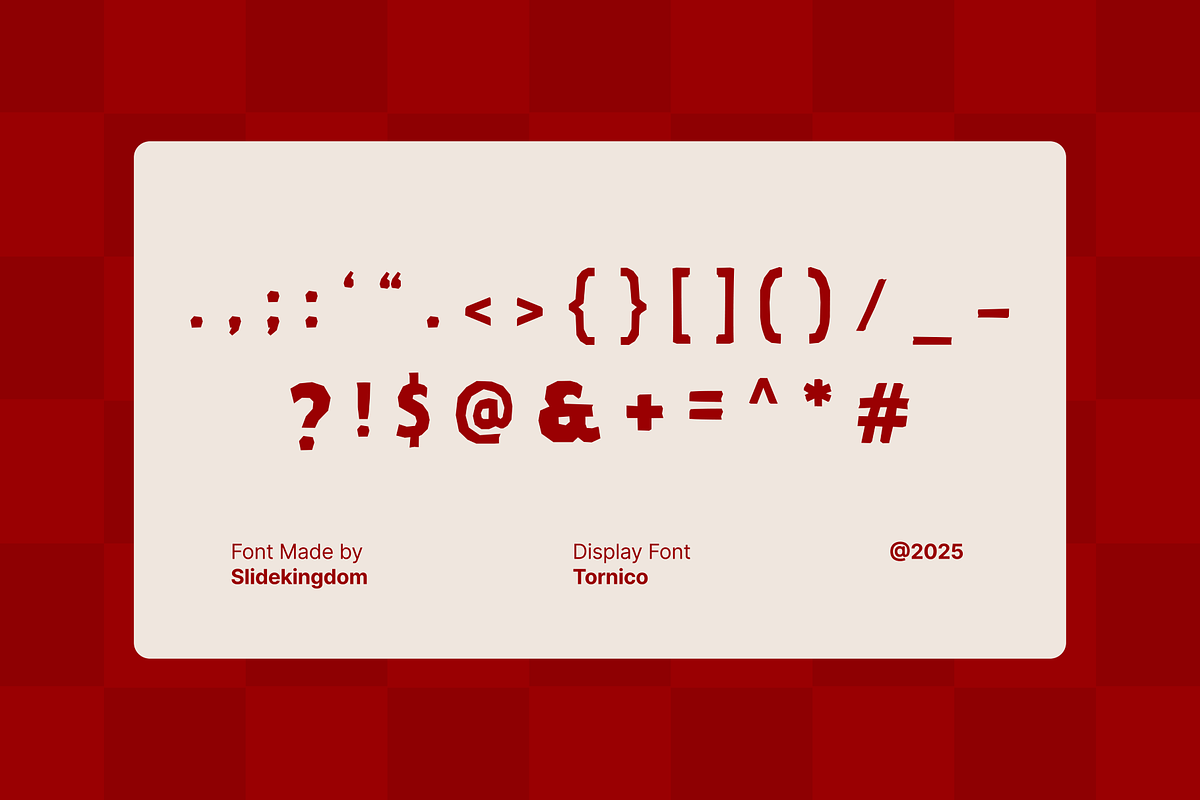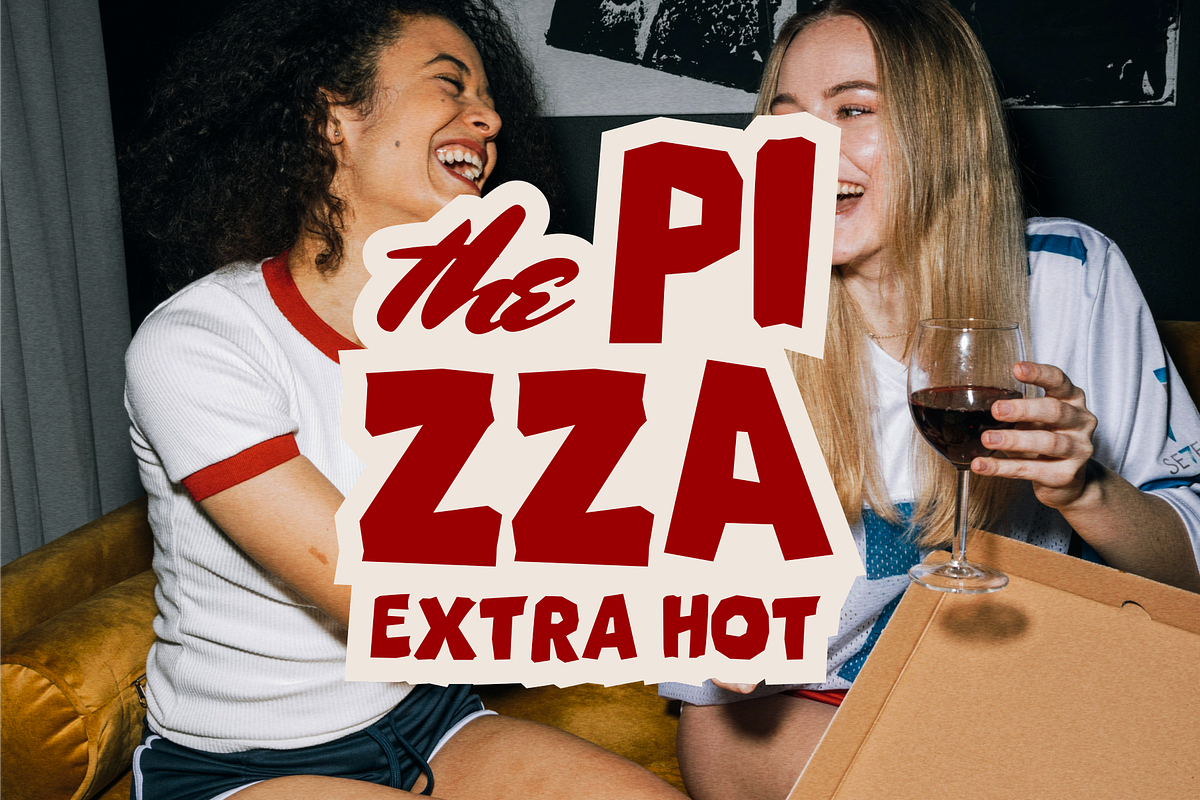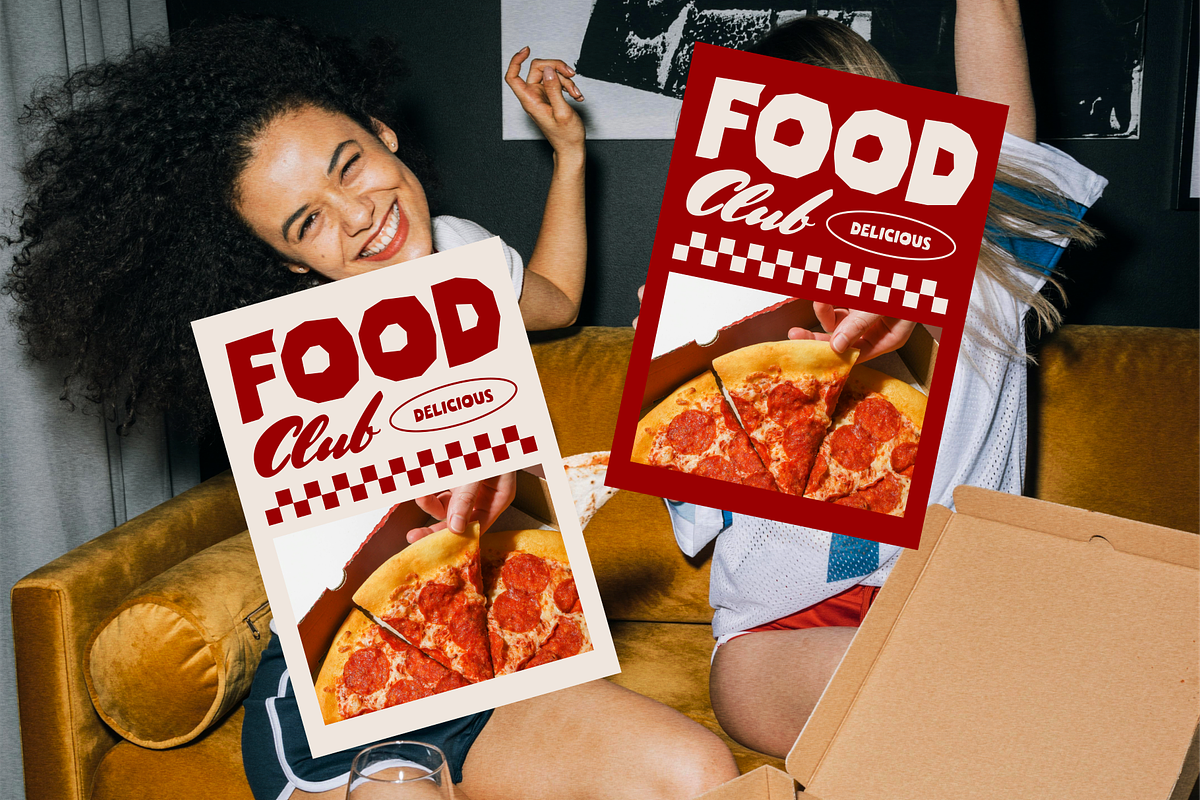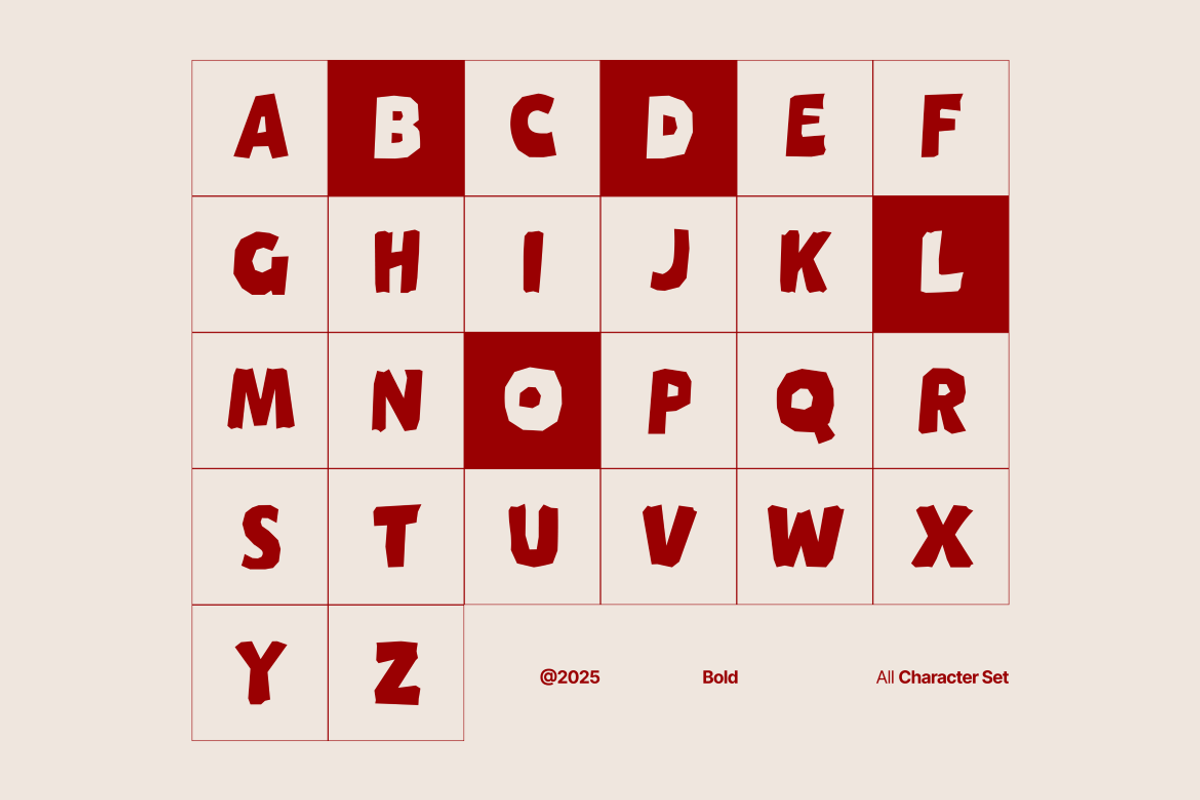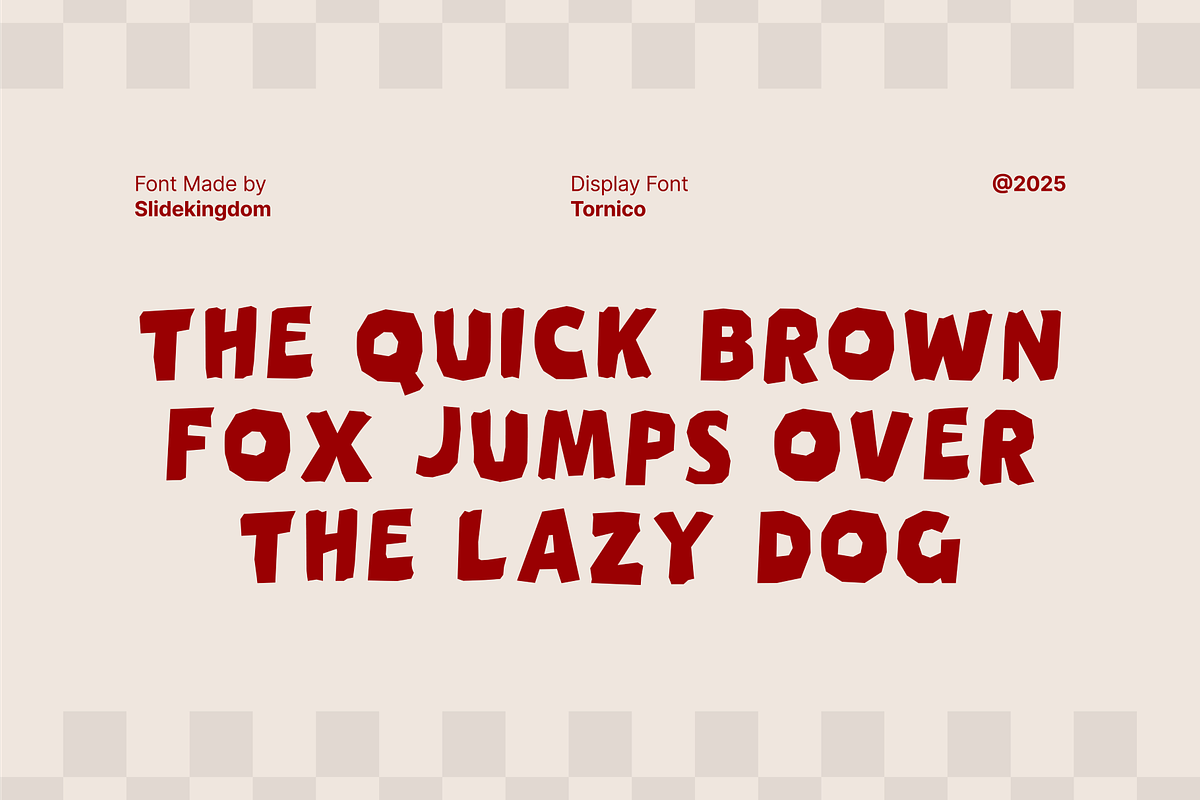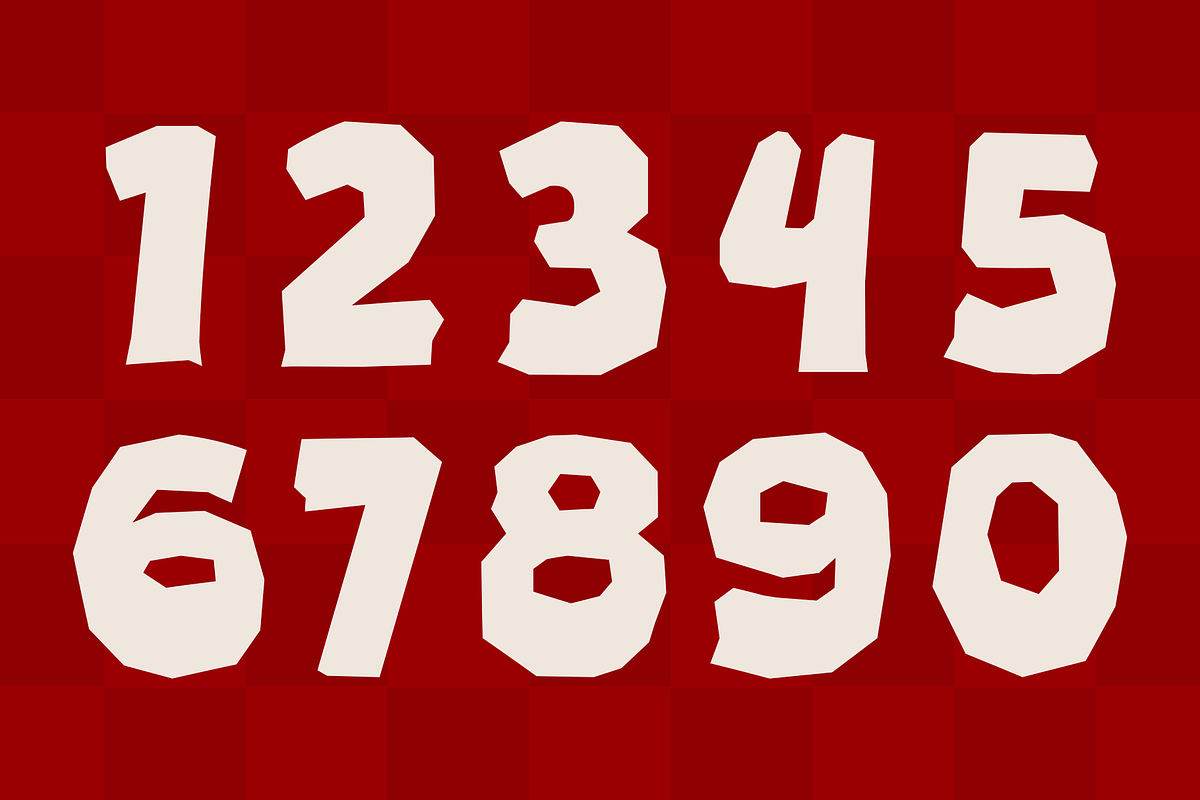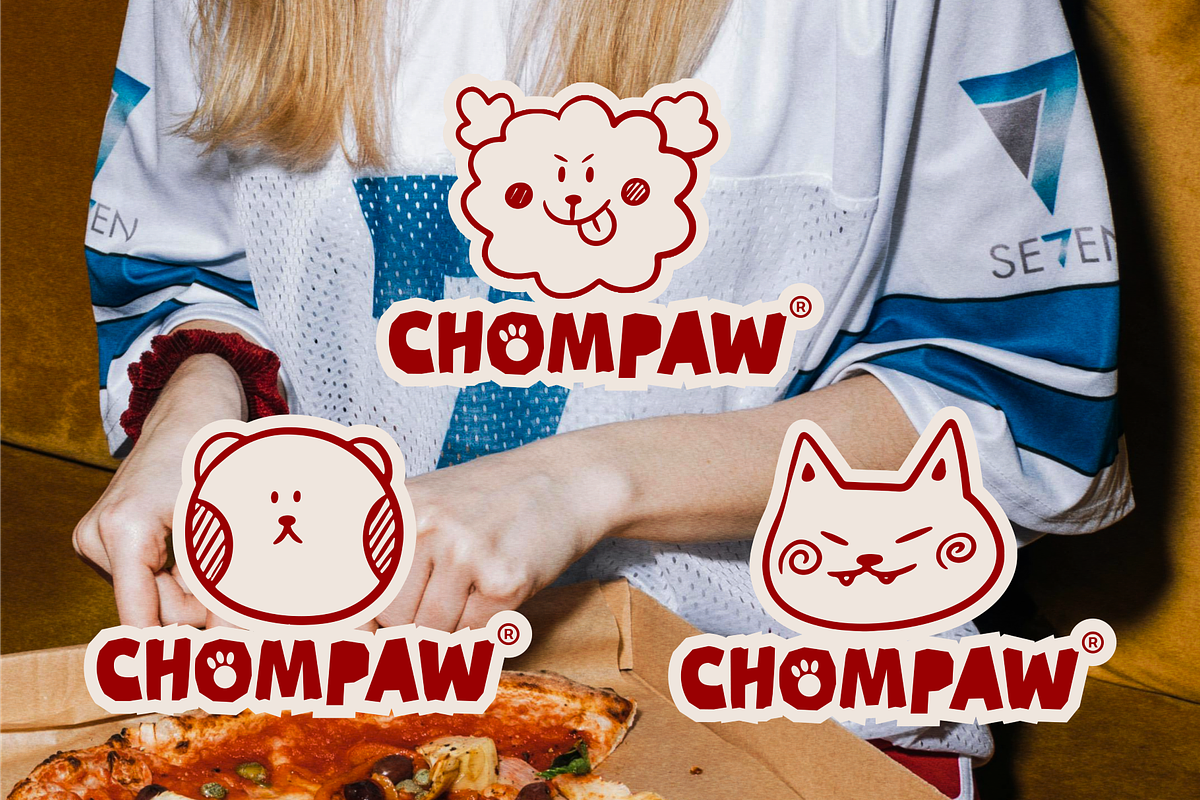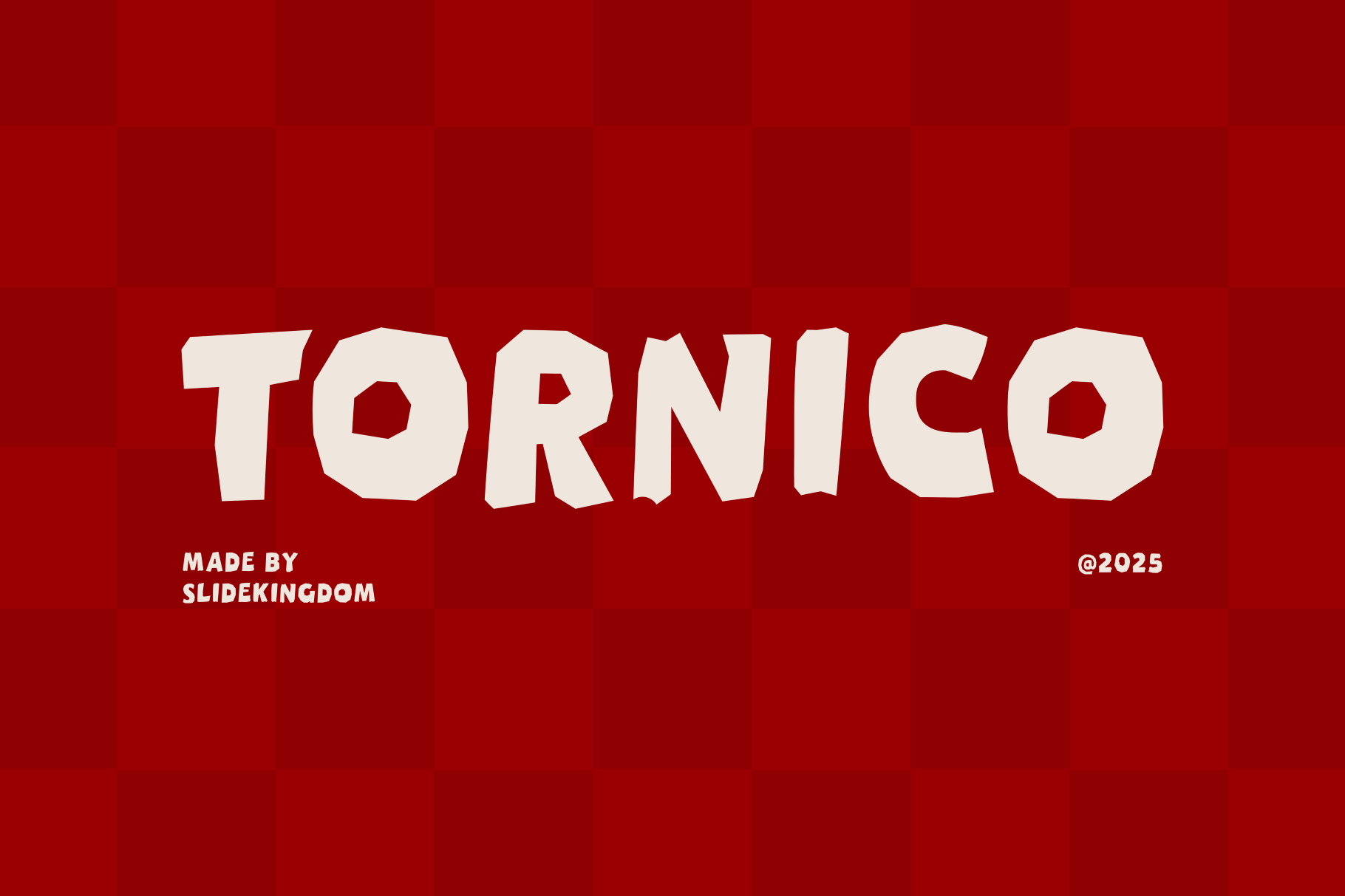
Tornico – Bold Playful Display Font
Tornico is a bold, playful display font with an angular, hand-cut style that adds fun and energy to any design. Perfect for kids’ themes, cartoon titles, posters, packaging, and branding. Its quirky shapes and strong presence make it ideal for attention-grabbing projects. Bring your text to life with Tornico!